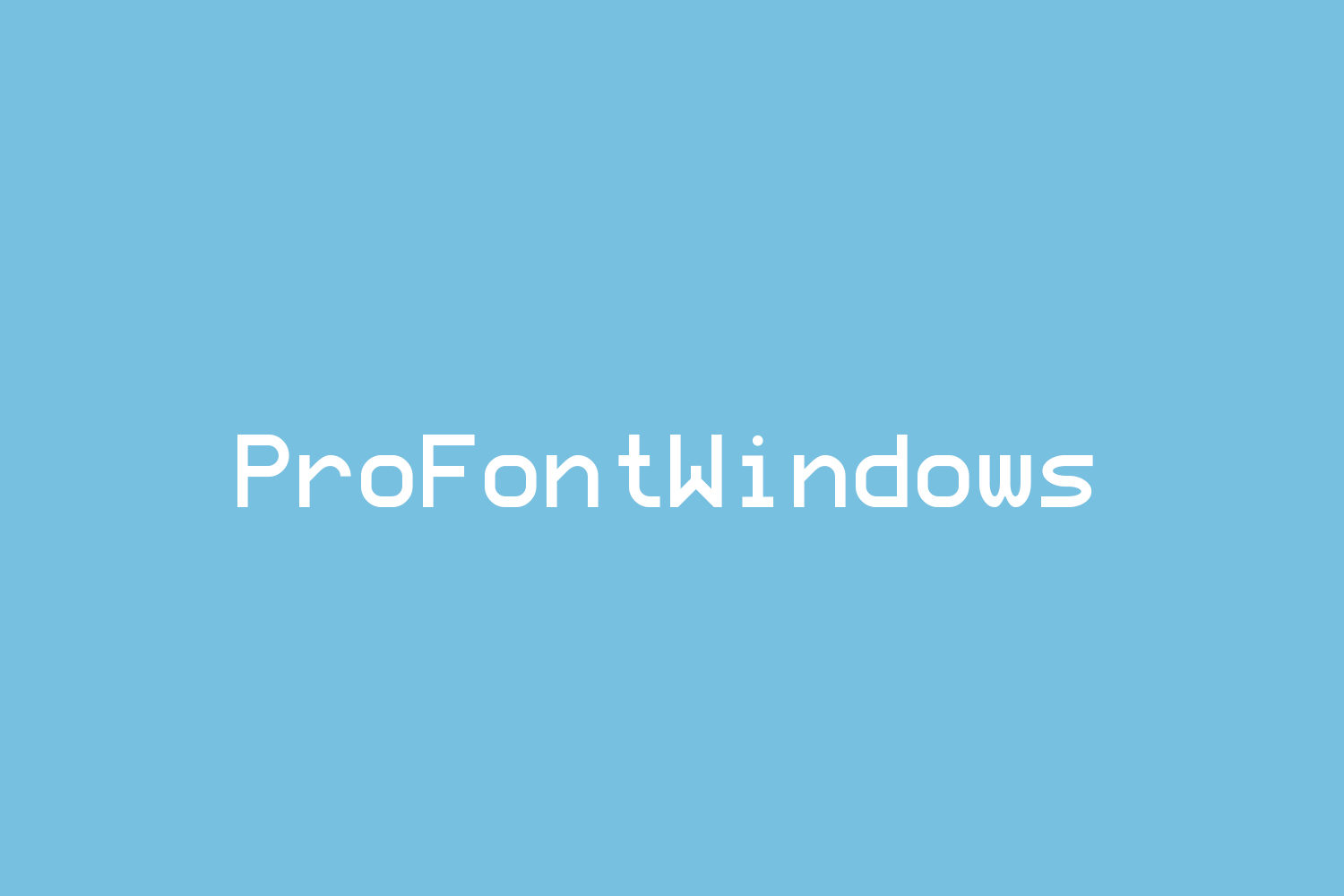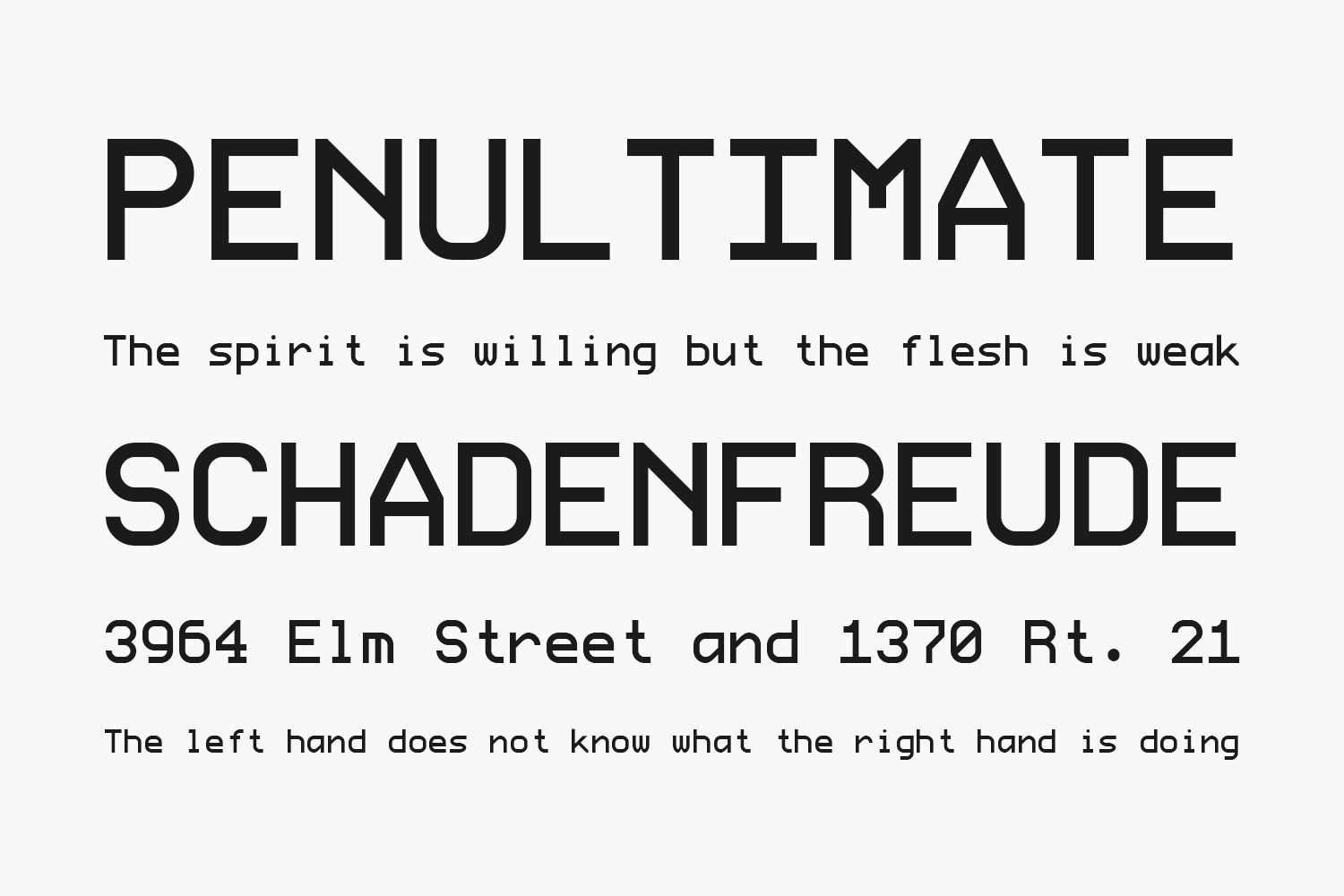
ProFont Free Font began life as a better version of “Monaco 9” which is especially good for programmers. It was created circa 1987 by Andrew Welch.
In version 1.1 of the ProFont distribution, ProFont ceased being just a 9 point bitmap font. Carl Osterwald contributed bitmaps at several larger sizes and an outline version of ProFont in both TrueType and Adobe Type 1 (ATM) formats.
In version 1.2 of the ProFont distribution, Carl extended ProFont to include the entire Macintosh character set including accented characters with ASCII codes from 0x80 to 0xFF.
In version 2.0 of the ProFont distribution, Carl provided an ISOLatin1 encoded version of ProFont. The shapes of several of the characters have been modified for improved readability, and a 7 pt bitmap version of ProFont is included.
In version 2.2 of the ProFont distribution, Carl produced a version of ProFont that uses the Windows character set. Once again the shapes of several of the characters have been modified for improved readability – especially when the fonts are anti-aliased.